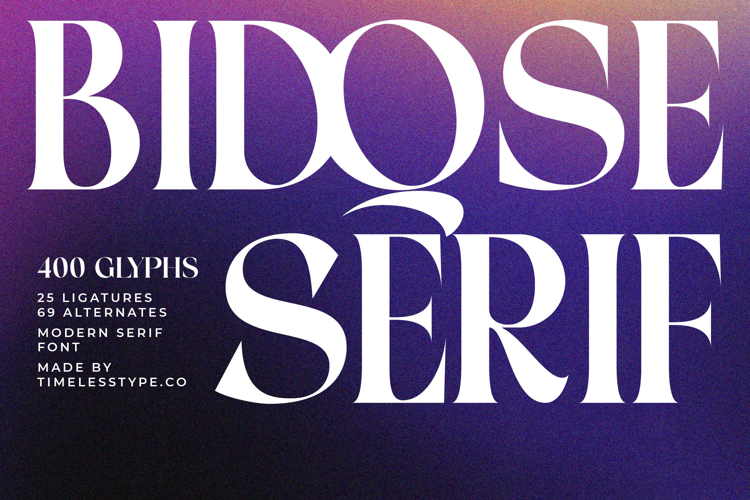
Mosbic - Modern Serif Font
Elevate your design aesthetic with the captivating presence of Bidqse - Modern Serif Font
Elevate your designs with unparalleled sophistication and a touch of contemporary grandeur. Introducing Font Bidqse - Modern Serif Font Serif Display, a typeface meticulously crafted to exude both classic elegance and cutting-edge style. Its striking high-contrast letterforms and graceful curves command immediate attention, making it the definitive choice for projects demanding a distinguished visual presence.
Experience a masterclass in typographic craftsmanship with Font Bidqse - Modern Serif Font Serif Display. This exquisite font boasts a comprehensive set of 400 glyphs, including 25 ligatures and 69 alternates, providing unparalleled creative flexibility. These expansive OpenType features allow designers to forge unique, distinctive branding and customized textual compositions that truly stand apart.